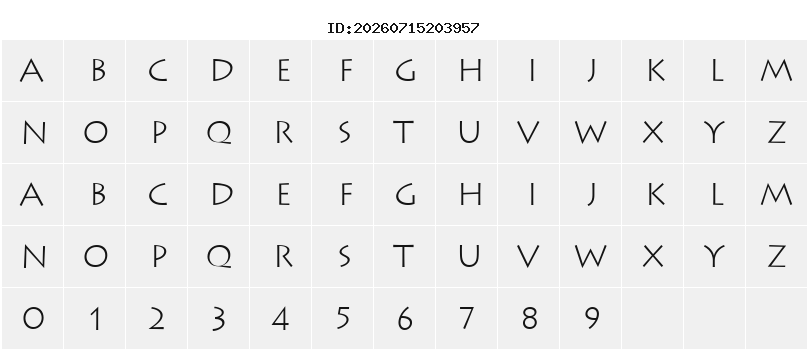
Austere Light SSi Preview
About Austere Light SSi.ttf
Austere Light SSi.ttf is a modern, elegant sans-serif font designed for ultimate readability and visual harmony. Perfect for branding, headlines, web design, and print materials.